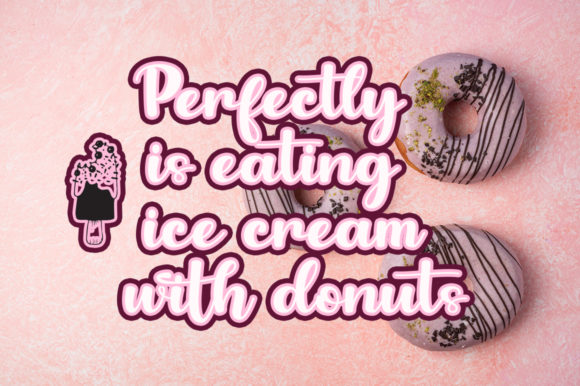
Popsicle Chocolate Font
db-ku.com - Script & Handwritten -- Popsicle Chocolate is a superb duo styled handwritten font with cute dessert elements. Simple and easy to use, this font will be very beautiful if you mix it with your various craft designs.